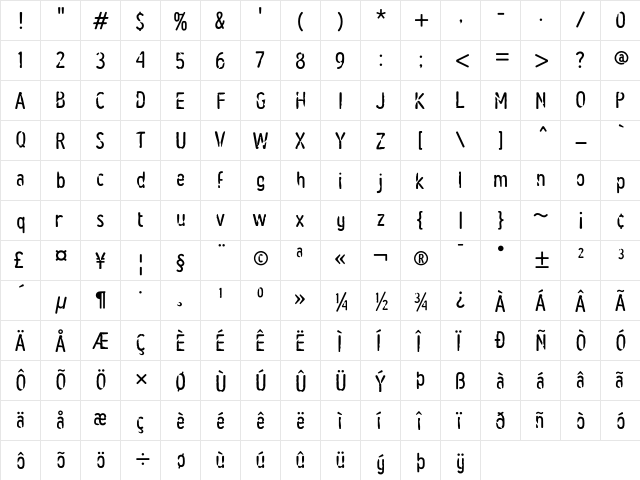
Bevel Broken Font Preview
Bevel Broken
Bevel Broken Font Details
| Style | Broken |
Design Context for Bevel Typeface
Bevel takes a measured approach to typography — its balanced proportions and neutral character make it a reliable workhorse for both digital and print work.
Pro Tip: Pair Bevel with a font of contrasting weight or personality to build a more expressive typographic hierarchy.